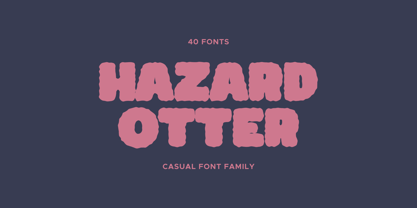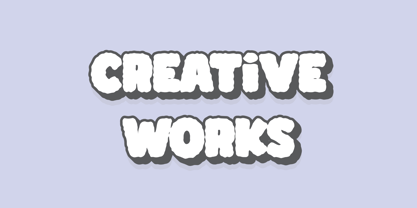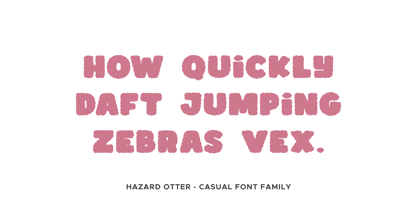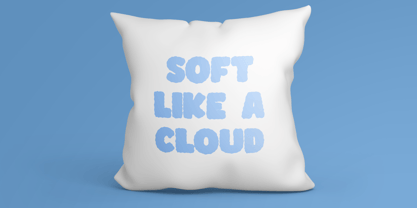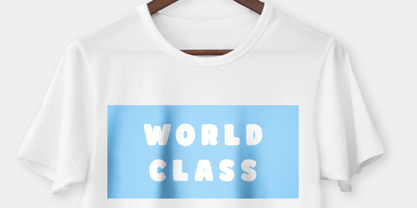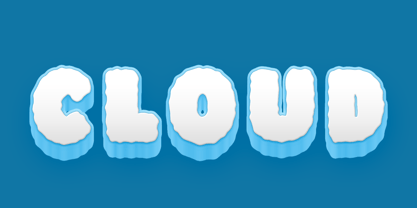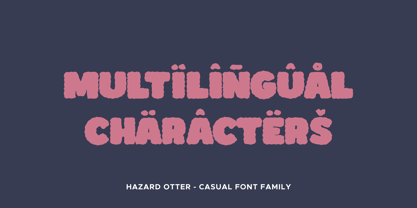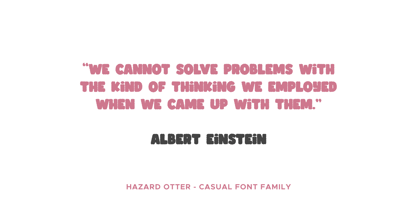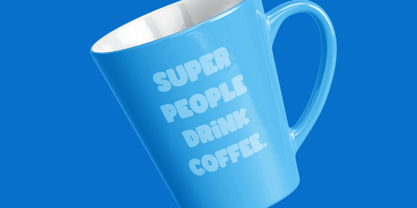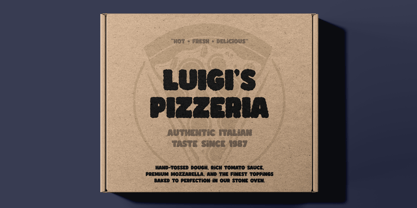
Hazard Otter is a carefully crafted bold display font that looks incredible. It's cute and child-friendly and also easy to read, which makes it perfect match for many projects. You can use it for a variety of design projects like posters, cards, books, invitations, games, covers, social media posts, quote photos, branding, editorials, and much more. Hazard Otter is multilingual and supports Latin and Cyrillic languages.
Hazard Otter